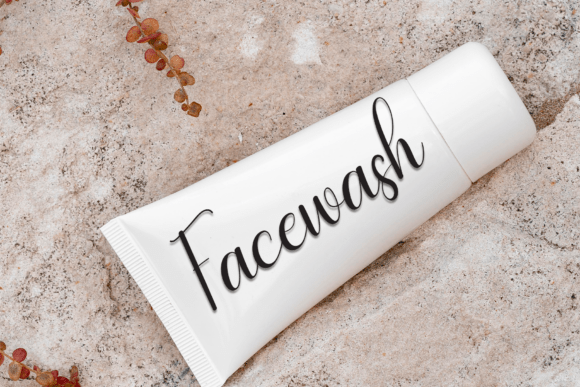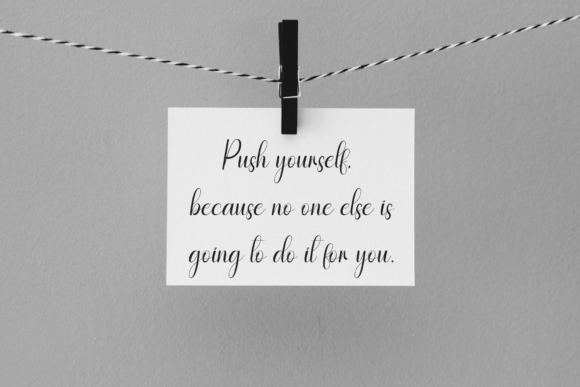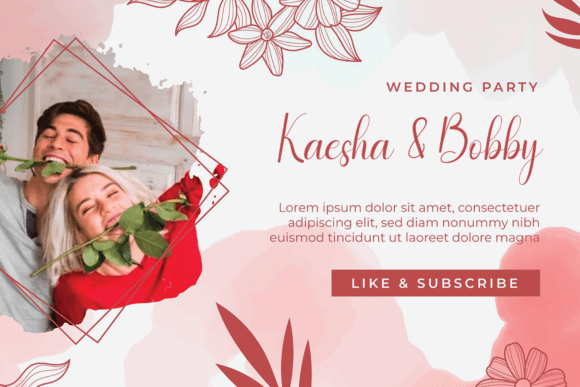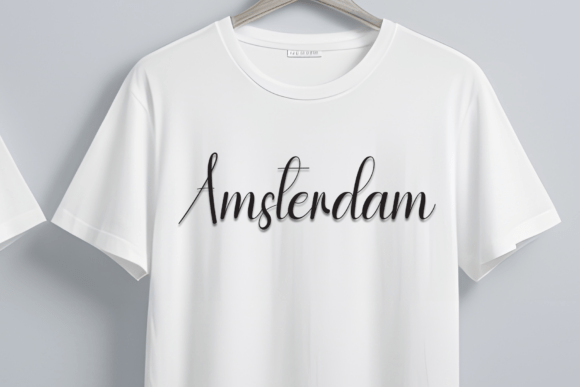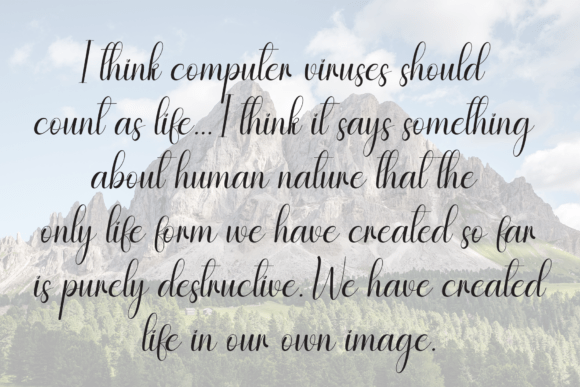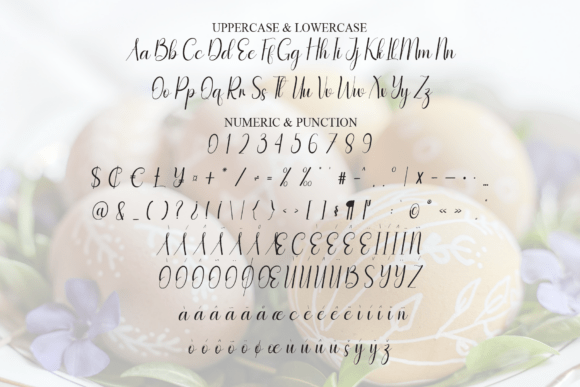
The Easter Font: A Stylish Handwritten Script to Elevate Your Designs
I’ll never forget the time I was working on a Easter-themed project for a client, and I just couldn’t find the right font to bring the design to life. The client wanted something that was both modern and playful, elegant and whimsical. I scoured the internet, tried out dozens of fonts, but nothing seemed quite right. That was until I stumbled upon the Easter font. ✨
This stylish handwritten script font has been a game-changer for my designs, and I’m excited to share it with you. Easter blends modern elegance with a playful touch, making it perfect for a wide range of creative projects.
What Makes Easter Font So Special?
Easter is more than just a font – it’s a design experience. Its fluid strokes and charming curves bring a personal feel to any design, making it ideal for logos, packaging, and invitations. Here are just a few things that make Easter stand out:
- ✨ Modern elegance: Easter’s sleek, sophisticated lines make it perfect for high-end designs and branding projects.
- ✅ Playful touch: The font’s whimsical curves and fluid strokes add a touch of playfulness to any design.
- 💕 Personal feel: Easter’s handwritten style gives your designs a warm, personal touch that’s hard to achieve with more traditional fonts.
- ✨ Versatility: Easter can be used for a wide range of projects, from logos and branding to invitations and packaging.
- ✅ Ease of use: The font is easy to read and works well in both digital and print formats.
- 💕 Unique style: Easter’s distinctive handwritten style sets it apart from more traditional fonts.
Small Quirks and Limitations:
While Easter is an amazing font, it’s not perfect. Here are a few things to keep in mind:
- ⚠️ Limited use in body text: While Easter is perfect for headings and titles, it may not be the best choice for longer blocks of body text.
- 🤔 Kerning issues: As with any font, you may need to adjust the kerning to get the best results.
The Story Behind Easter Font
Easter font was designed by a team of creatives who wanted to create a font that was both modern and elegant, yet playful and whimsical. The design process involved a lot of experimentation and iteration, but the end result is a font that’s perfect for a wide range of creative projects.
Q: What is the Easter font?
A: Easter font is a stylish handwritten script font that blends modern elegance with a playful touch.
Q: What can I use Easter font for?
A: Easter font is perfect for a wide range of creative projects, including logos, packaging, invitations, and more.
Q: Is Easter font easy to read?
A: Yes, Easter font is easy to read and works well in both digital and print formats.